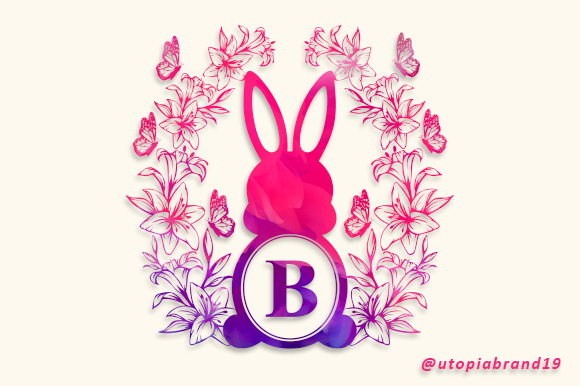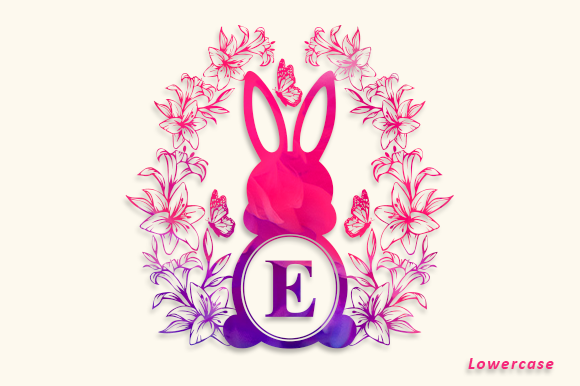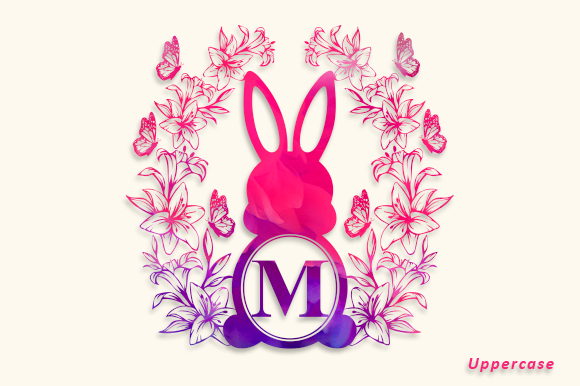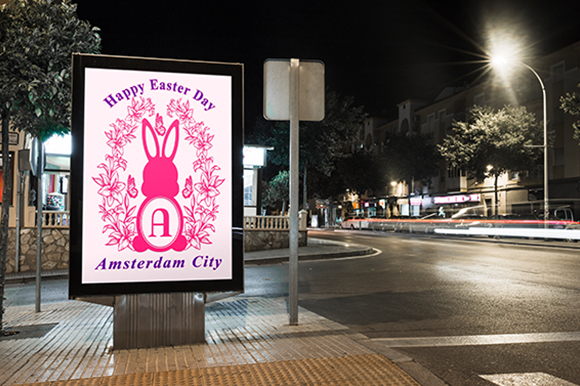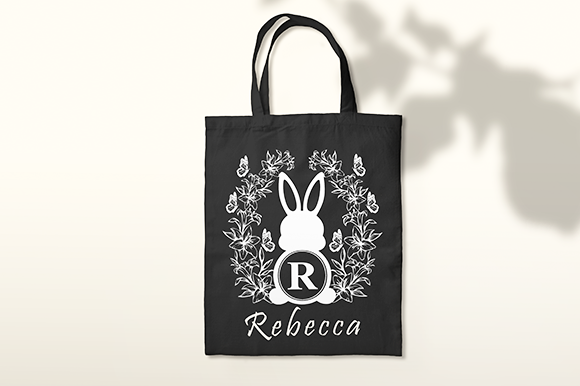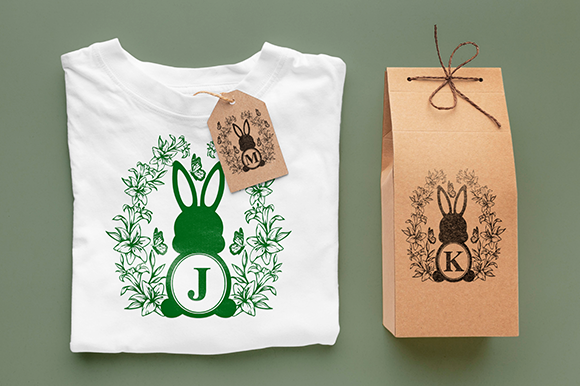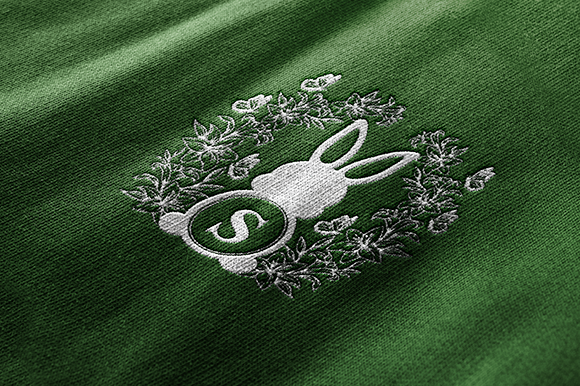
Discover the Magic of Bunny Flowers Monogram Font
As you sit at your desk, surrounded by scraps of paper, pens, and half-finished projects, you feel the familiar pang of creative block. But then, something sparks – a vision of delicate petals, whimsical curves, and playful charm. It’s moments like these that remind us of the joy of design, and the power of the right font to bring our ideas to life.
Enter the enchanting Bunny Flowers Monogram Font, a charming decorative font that’s sure to capture your heart. With its authentic feel and vintage charm, this font is perfect for creating beautiful invitations, gorgeous stationery art, eye-catching social media posts, and cute greeting cards. Whether you’re a seasoned designer or just starting out, the Bunny Flowers Monogram Font is a valuable addition to your toolkit, offering endless possibilities for creativity and self-expression.
Bunny Flowers Monogram Font Key Features
- Unique Characteristics: Bunny Flowers Monogram Font features intricate, hand-drawn designs and unique monogram combinations, making it ideal for creating custom and personalized designs.
Bunny Flowers Monogram Font Review
I recently had the chance to work with the “Bunny Flowers Monogram Font” and overall, I was quite impressed. The font has a lot of character and can add a touch of whimsy to your designs. ✨ The use of flowers and bunnies to create monograms is a unique and playful approach that can be really effective in the right context.
One of the things that works particularly well with this font is its versatility. It can be used for a wide range of designs, from wedding invitations to nursery decor. The font is also highly customizable, allowing you to adjust the size, color, and style to fit your specific needs. ✨ The font also has a wide range of monogram combinations, making it easy to find the perfect fit for your design.
While the “Bunny Flowers Monogram Font” is a great addition to any designer’s toolkit, there are a few limitations to be aware of. ⚠️ One of the main issues is that the font can be a bit busy, making it difficult to read in certain situations. Additionally, the font is not as versatile as some other monogram fonts, and may not be suitable for all types of designs.
Overall, I would recommend the “Bunny Flowers Monogram Font” to designers who are looking for a unique and playful addition to their toolkit. While it may have some limitations, the font is highly customizable and can be a great choice for a wide range of designs.
- Unique and playful design
- Wide range of monogram combinations
- Can be used for a wide range of designs
- Not suitable for all types of designs
Bunny Flowers Monogram Font Practical Application Guide
Q: What is the recommended font size and line height for using the Bunny Flowers Monogram Font?
For optimal readability, we recommend using the Bunny Flowers Monogram Font at a minimum size of 24 points. For body text, a line height of 1.5 to 2 times the font size is recommended. For headings, a line height of 1 to 1.2 times the font size is sufficient. These settings will ensure that your text remains clear and legible, even at smaller font sizes.